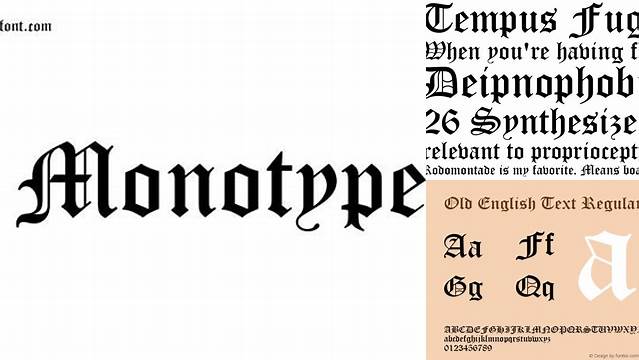
Monotype Old English Font Free Download: A Detailed Guide
Hey guys! Are you looking for a font that screams classic elegance and timeless appeal? Well, look no further than the Monotype Old English Text STD font. This font is a true masterpiece, steeped in history and tradition, and it’s perfect for adding a touch of sophistication to any project. This comprehensive guide dives deep into the world of Monotype Old English Text STD, exploring its origins, characteristics, uses, and where you can find a free download. So, let's embark on this typographic journey together and discover why this font remains a favorite among designers and enthusiasts alike. We'll be covering everything from its historical roots and unique stylistic features to practical applications and, most importantly, how you can get your hands on it without spending a dime. Whether you're a seasoned graphic designer, a budding creative, or simply someone who appreciates the beauty of fonts, this guide is your one-stop resource for all things Monotype Old English Text STD.
We will explore the intricate details that make this font so special, from its meticulously crafted letterforms to its inherent ability to evoke a sense of history and grandeur. You'll discover the diverse range of applications where Monotype Old English Text STD truly shines, from elegant invitations and certificates to impactful headlines and branding materials. Moreover, we'll address the burning question on everyone's mind: how to access this iconic font for free, while ensuring you're doing so legally and ethically. Think about the last time you saw a design that just blew you away. Chances are, the font played a huge role in that. Fonts are the unsung heroes of visual communication, silently conveying messages and emotions through their unique shapes and forms. Monotype Old English Text STD is a prime example of a font that speaks volumes, adding depth, character, and a touch of the extraordinary to any project it graces. So, buckle up and get ready to delve into the fascinating world of this remarkable typeface. We're about to uncover the secrets behind its enduring appeal and show you how to harness its power to elevate your own creative endeavors.
Imagine the power of a font that can transport your audience to another era, instantly imbuing your work with a sense of history and tradition. That's precisely what Monotype Old English Text STD does. Its elegant and ornate letterforms evoke the grandeur of medieval manuscripts and the sophistication of classic typography. But beyond its aesthetic appeal, this font is also a powerful tool for communication, capable of conveying a wide range of emotions and messages. From formal elegance to playful whimsy, Monotype Old English Text STD can adapt to suit a variety of design contexts. This versatility is one of the key reasons why it has remained a popular choice for designers across various disciplines. Whether you're designing a wedding invitation, a book cover, or a corporate logo, this font can add a touch of distinction and personality to your work. And let's be honest, who doesn't love a font that can make their designs stand out from the crowd? In the following sections, we'll explore the specific characteristics that make Monotype Old English Text STD so unique, its historical significance, and the best ways to use it in your own projects. We'll also tackle the important issue of font licensing and how to ensure you're using this font legally and ethically. So, stick around and get ready to unlock the full potential of this remarkable typeface.
To truly appreciate the Monotype Old English Text STD font, it’s essential to understand its rich history and unique characteristics. This font family is deeply rooted in the tradition of blackletter typefaces, which originated in Europe during the Middle Ages. Blackletter fonts, also known as Gothic or Old English fonts, were the dominant script used for printing in Northern Europe for centuries. They are characterized by their dense, angular letterforms and heavy strokes, which give them a distinctive and formal appearance. The Monotype Old English Text STD font is a modern interpretation of these classic blackletter styles, carefully crafted to retain the elegance and historical charm of the originals while also being suitable for contemporary use. This delicate balance between tradition and modernity is what makes this font so special. It allows designers to tap into the rich heritage of blackletter typography while also creating designs that feel fresh and relevant today.
The specific design of the Monotype Old English Text STD font is attributed to the Monotype Corporation, a renowned type foundry with a long and distinguished history. The Monotype Corporation has been instrumental in shaping the landscape of typography for over a century, creating some of the world's most iconic and widely used fonts. Their expertise and craftsmanship are evident in every detail of the Monotype Old English Text STD font, from the precise curves and angles of the letterforms to the careful spacing and kerning. When you use this font, you're not just using a typeface; you're using a piece of typographic history. Think of it as a digital artifact, carrying with it the legacy of centuries of craftsmanship and design innovation. This is why understanding the history behind a font can be so valuable. It gives you a deeper appreciation for its design and allows you to use it more effectively in your own work. You can leverage the historical associations of the font to enhance your message and create a stronger connection with your audience. So, the next time you use Monotype Old English Text STD, remember that you're not just choosing a font; you're choosing a piece of history.
Beyond its historical roots, the characteristics of the Monotype Old English Text STD font are what truly set it apart. Its intricate letterforms, with their sharp angles and dramatic curves, create a visually striking effect. The font's heavy weight and dense texture give it a strong presence on the page, making it ideal for headlines, titles, and other display uses. However, it's important to note that this font is not typically recommended for large blocks of body text, as its ornate design can become tiring to read over extended periods. But when used strategically, Monotype Old English Text STD can add a touch of grandeur and sophistication to any design. Imagine using it for a wedding invitation, a certificate of achievement, or a book cover. The font's elegant and formal appearance will instantly elevate the design and convey a sense of quality and tradition. But it's not just for formal occasions. Monotype Old English Text STD can also be used to create a sense of mystery, intrigue, or even whimsy, depending on the context. Think about using it for a fantasy novel cover, a historical drama poster, or even a quirky logo design. The possibilities are endless, and the only limit is your imagination. In the following sections, we'll explore some specific examples of how Monotype Old English Text STD has been used effectively in various design projects, providing you with inspiration and ideas for your own work.
The Monotype Old English Text STD font isn't just a pretty face; it's a versatile tool that can be used in a wide range of design applications. Its classic and elegant appearance makes it particularly well-suited for projects that require a touch of formality, tradition, or historical significance. Think about certificates, diplomas, invitations, and announcements – these are all areas where Monotype Old English Text STD can truly shine. The font's dignified and refined character adds a sense of gravitas and importance to these types of documents, making them feel more special and memorable. But its applications extend far beyond the realm of formal documents. Monotype Old English Text STD can also be used effectively in branding, advertising, and even web design, provided it's used judiciously and in the right context. The key is to understand the font's strengths and limitations and to use it in a way that complements the overall design aesthetic. For instance, you might use it for a logo or a headline to create a strong visual impact, but you would likely avoid using it for the body text of a website, as it can be difficult to read on screen for extended periods. The beauty of this font lies in its ability to evoke a sense of history and tradition, but it's crucial to balance this with readability and user experience.
Consider the impact of using Monotype Old English Text STD font for a historical drama poster or a fantasy novel cover. The font's intricate letterforms and old-world charm instantly transport the viewer to another time and place, creating a sense of authenticity and intrigue. It's a powerful way to communicate the genre and tone of the work, drawing the audience in and piquing their interest. Similarly, imagine using it for the logo of a high-end restaurant or a luxury brand. The font's elegant and sophisticated appearance can convey a sense of quality, exclusivity, and heritage, helping to establish a strong brand identity. But it's not just about aesthetics. The choice of font can also have a significant impact on the overall message you're trying to convey. Monotype Old English Text STD, with its historical associations, can add depth and meaning to your designs, imbuing them with a sense of tradition and authority. This can be particularly valuable in areas like legal documents, historical publications, and even religious texts, where the font's gravitas can lend weight and credibility to the content. So, when choosing a font for your next project, take a moment to consider the message you want to send and how the font can help you achieve that goal. Monotype Old English Text STD, with its rich history and versatile character, is a powerful tool that can help you elevate your designs and communicate effectively.
Let's dive into some specific examples to illustrate the practical applications of Monotype Old English Text STD font. Think about a craft brewery looking to create a brand that feels both traditional and upscale. Using Monotype Old English Text STD for their logo and packaging can evoke a sense of old-world craftsmanship and quality, setting them apart from competitors who opt for more modern and minimalist designs. Or consider a high-end stationery company that wants to create a line of elegant wedding invitations. Monotype Old English Text STD can add a touch of sophistication and romance to the invitations, making them feel truly special and memorable. In the realm of digital design, this font can be used effectively for website headers, banners, and even social media graphics, provided it's used sparingly and in conjunction with a more readable body text font. The key is to create a visual hierarchy that guides the viewer's eye and ensures that the message is clear and concise. Monotype Old English Text STD can also be used for event posters, flyers, and brochures, particularly for events that have a historical or traditional theme. Think about a Renaissance fair, a historical reenactment, or a classical music concert. The font's elegant and formal appearance can help to create a sense of occasion and draw attention to the event. These are just a few examples of the many ways that Monotype Old English Text STD can be used effectively. The key is to experiment, explore, and find the applications that best suit your needs and creative vision. In the following sections, we'll address the all-important question of where you can find a free download of this iconic font, while also emphasizing the importance of using fonts legally and ethically.